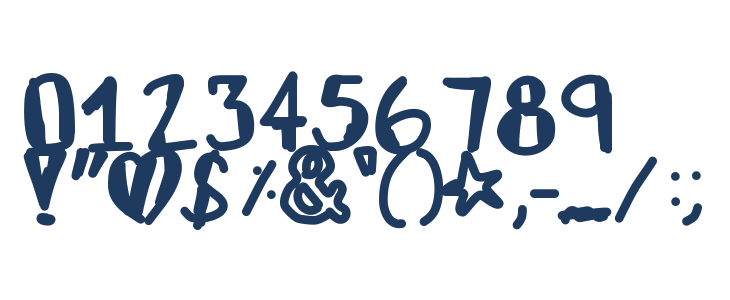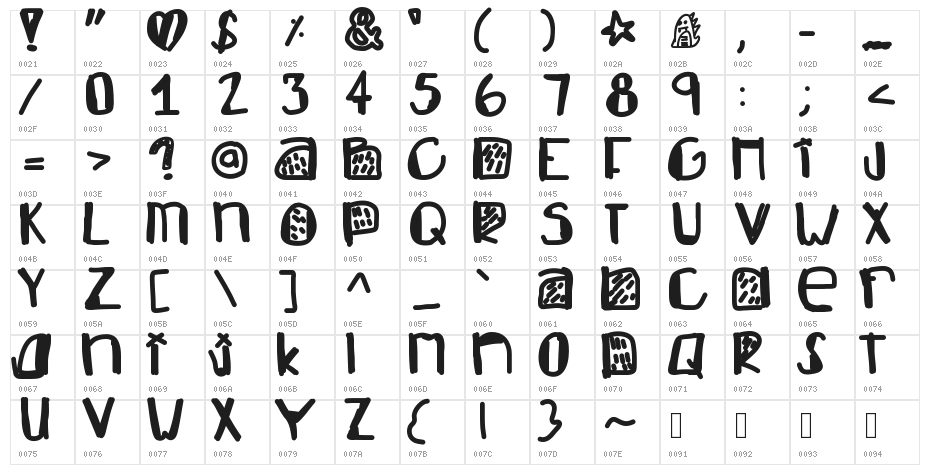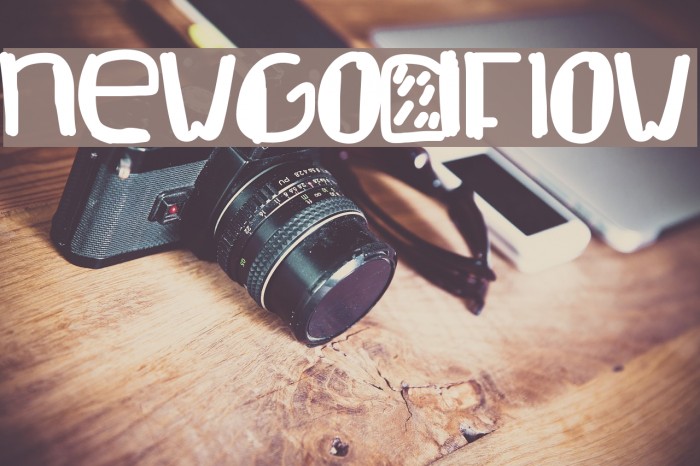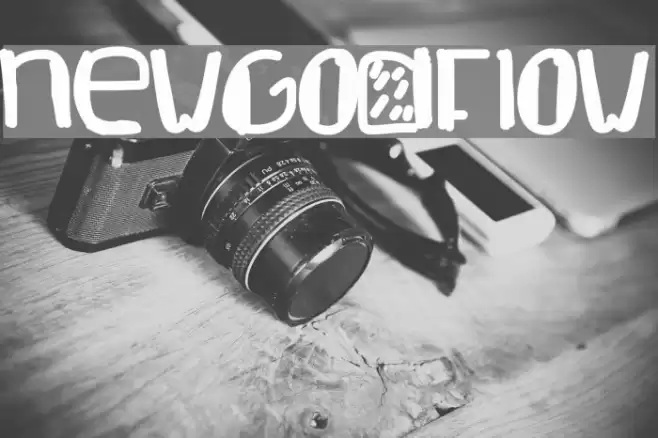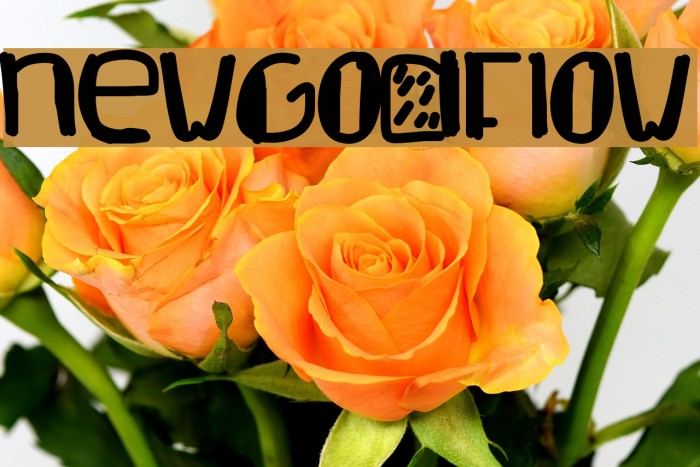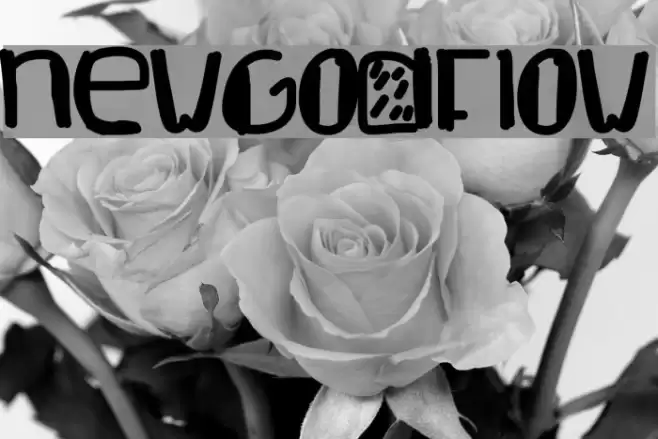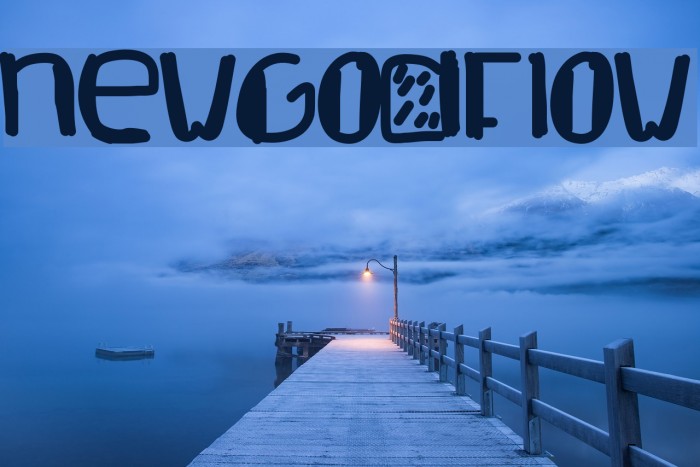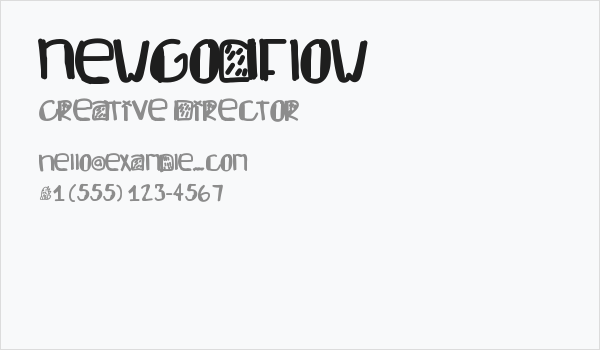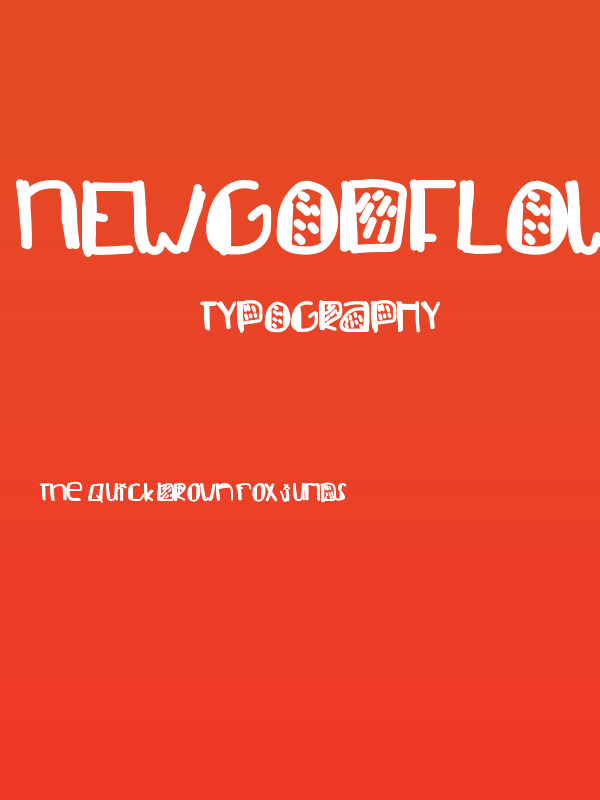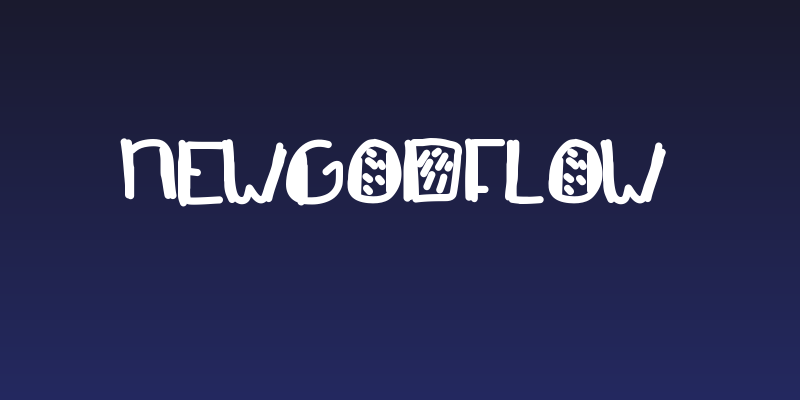
NewGodFlow Font
NewGodFlow Description
This font exhibits a bold and playful style with a hand-drawn appearance. The characters are thick and rounded, with a unique, almost cartoonish flair. The uppercase and lowercase letters maintain a consistent width, giving the font a cohesive look. The numbers and special characters follow the same design principles, ensuring uniformity across all glyphs. The font's informal and artistic nature makes it stand out, with a slightly irregular baseline adding to its charm. The strokes are consistent in thickness, providing a balanced and visually appealing look.
| Overall Style | Playful, Artistic |
| Proposed Projects | Ideal for children's books, comic strips, playful branding, and creative posters. |